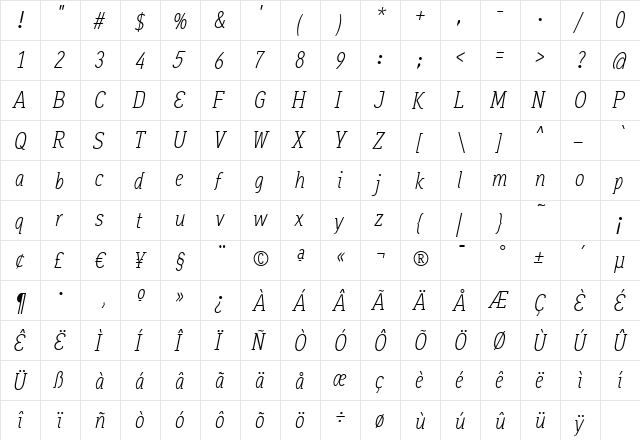
Aaux OfficeLight Italic Regular
Design Context for Aaux OfficeLight Italic Typeface
Aaux OfficeLight Italic is a composed and adaptable typeface that performs quietly and consistently across a wide range of design contexts. The dynamic lean of this cut emphasises speed and emphasis in any layout. The delicate stroke weight brings airiness and refinement to layouts.
Pro Tip: Use Aaux OfficeLight Italic for emphasis, pull quotes, and subheadings where its slanted energy can add rhythm to the layout.